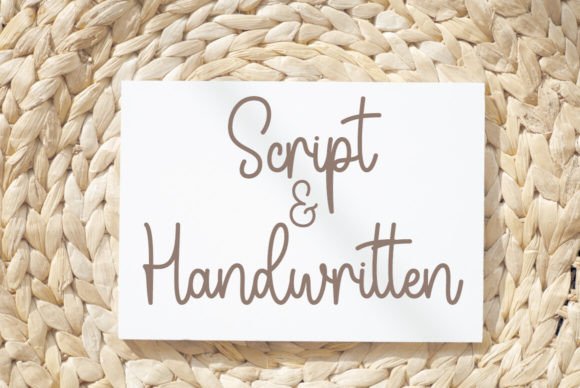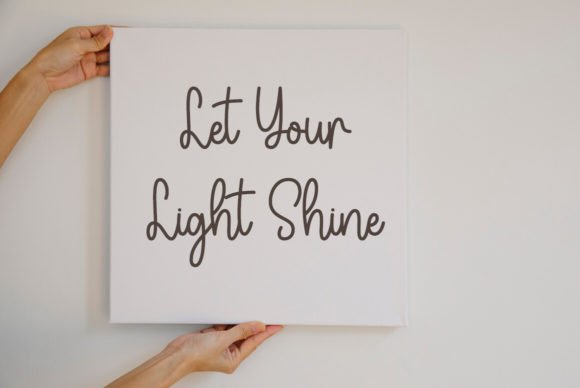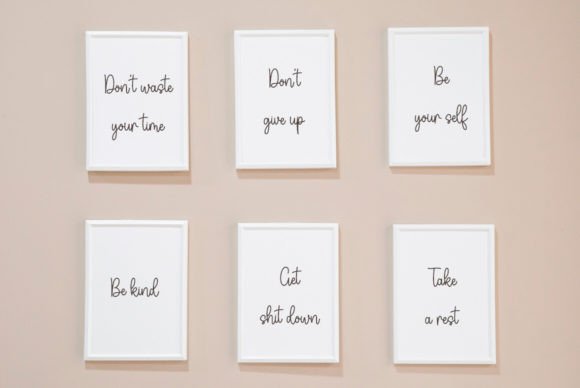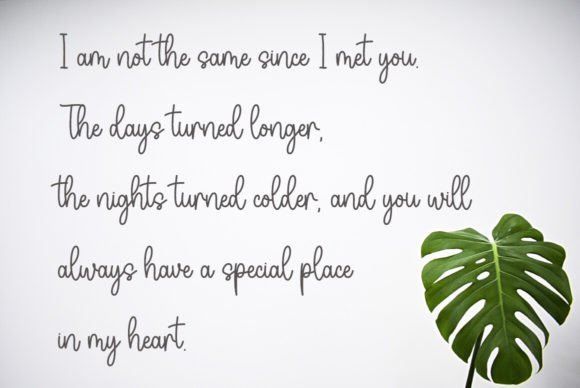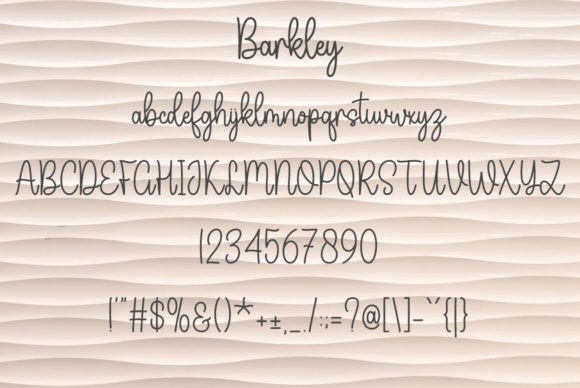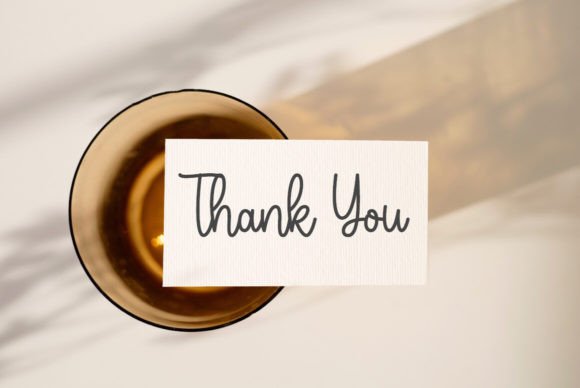
Discover the Joy of Handwritten Typography: Introducing Barkley Font
Have you ever found yourself scribbling down a brilliant idea in the margins of a notebook, only to realize that your handwriting has become the perfect match for your creative vision? This is the magic of handwritten typography, and it’s exactly what the Barkley Font aims to capture. A simple and friendly handwritten font, Barkley is designed to add a touch of whimsy and personality to your designs.
Whether you’re a seasoned designer or a creative enthusiast, the Barkley Font is an invaluable addition to your toolkit. Its versatility makes it perfect for a wide range of projects, from logos and wedding invitations to quotes and advertisements. With its friendly and approachable feel, the Barkley Font is sure to bring a smile to your audience’s faces and leave a lasting impression.
- Unique Characteristics: The font features a unique blend of modern and vintage elements, with a distinctive rounded edge and geometric shapes that give it a friendly and approachable feel.
Barkley Font Review
I recently had the chance to work with the Barkley font, and I have to say, it’s a solid choice for many projects. ✨ One of the things that stands out to me is its friendly, approachable feel. The rounded edges and subtle curves make it perfect for designs that need a warm, inviting tone.
Another thing I like about Barkley is its versatility. ✨ It’s suitable for a wide range of projects, from editorial and advertising to packaging and branding. The font is also highly legible, making it a great choice for text-heavy designs.
- ⚠️ The font may not be the best choice for high-end or luxury brands, as it has a somewhat casual feel.
- ⚠️ Some users may find the font too rounded or childlike, which could be a drawback for certain projects.
- ⚠️ The font family is relatively small, which may limit its use in complex designs.
Overall, I think the Barkley font is a great addition to any designer’s toolkit. It’s easy to use, highly legible, and versatile enough to work well in a variety of projects. While it may not be the best choice for every project, it’s definitely worth considering for designs that need a friendly, approachable feel.
Getting the Most Out of Barkley Font
For best results, use the Barkley font in conjunction with a clean and modern design aesthetic. Experiment with different font sizes and colors to create visual interest. Consider pairing the Barkley font with a bold or sans-serif font for added contrast.
The Barkley font is well-suited for a variety of design applications, including:
- Food and beverage branding
- Outdoor and adventure marketing
- Wedding and event invitations
- Modern and minimalist design projects